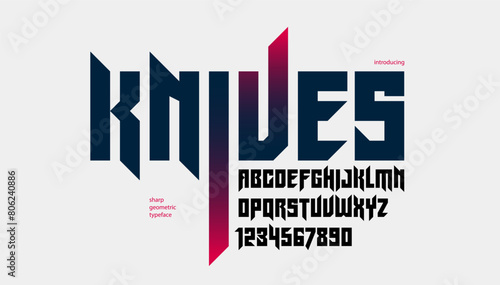
Sharp and bold gothic font for logo creation of for headlines, edgy geometric modern vector typeface, heavy metal and hard rock style alphabet with numbers.